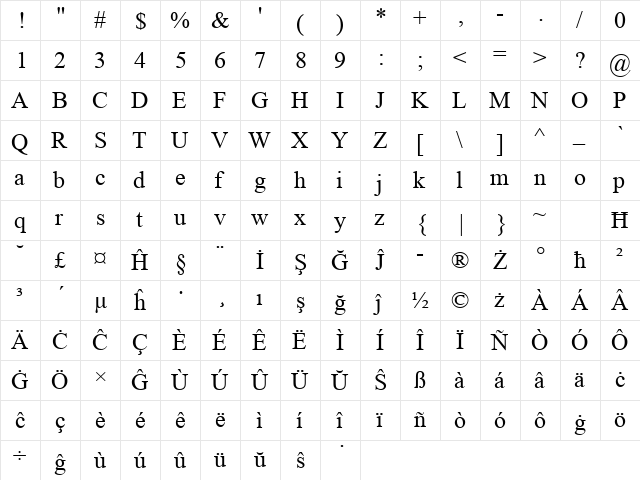
Times SudEuro Regular
Design Context for Times SudEuro Typeface
Times SudEuro is a composed and adaptable typeface that performs quietly and consistently across a wide range of design contexts.